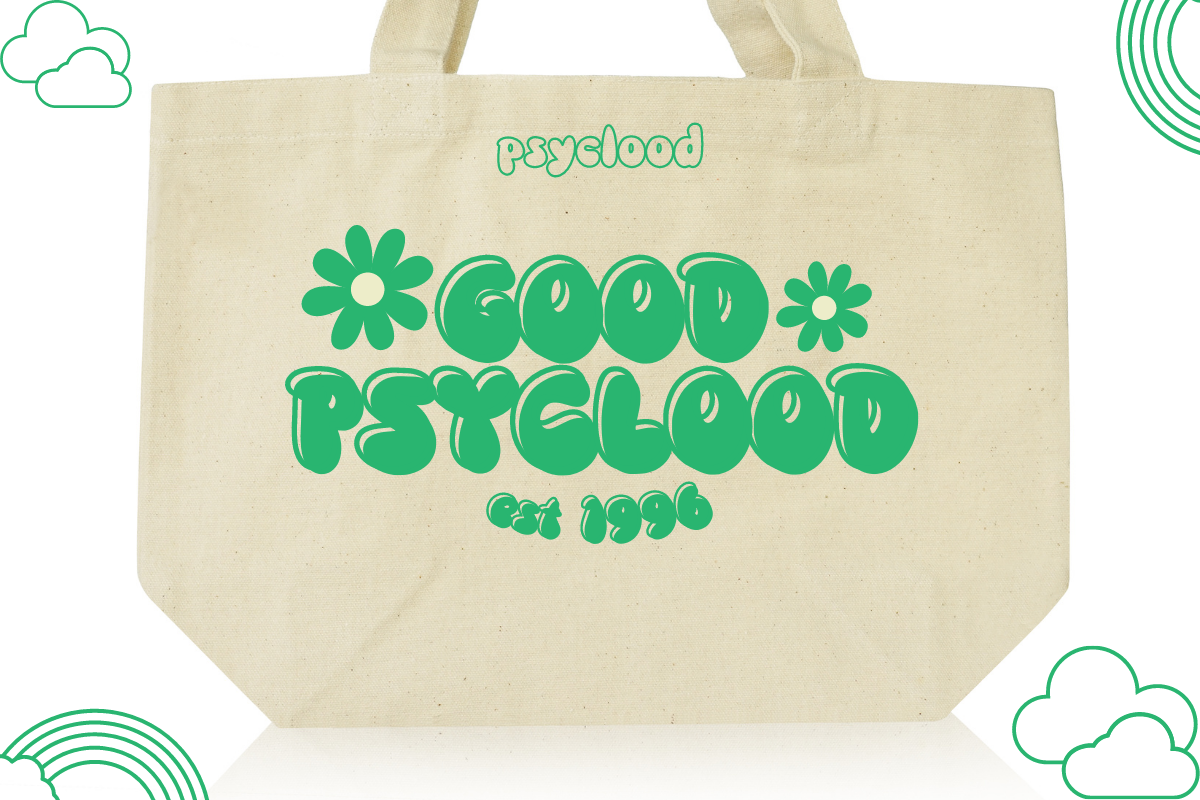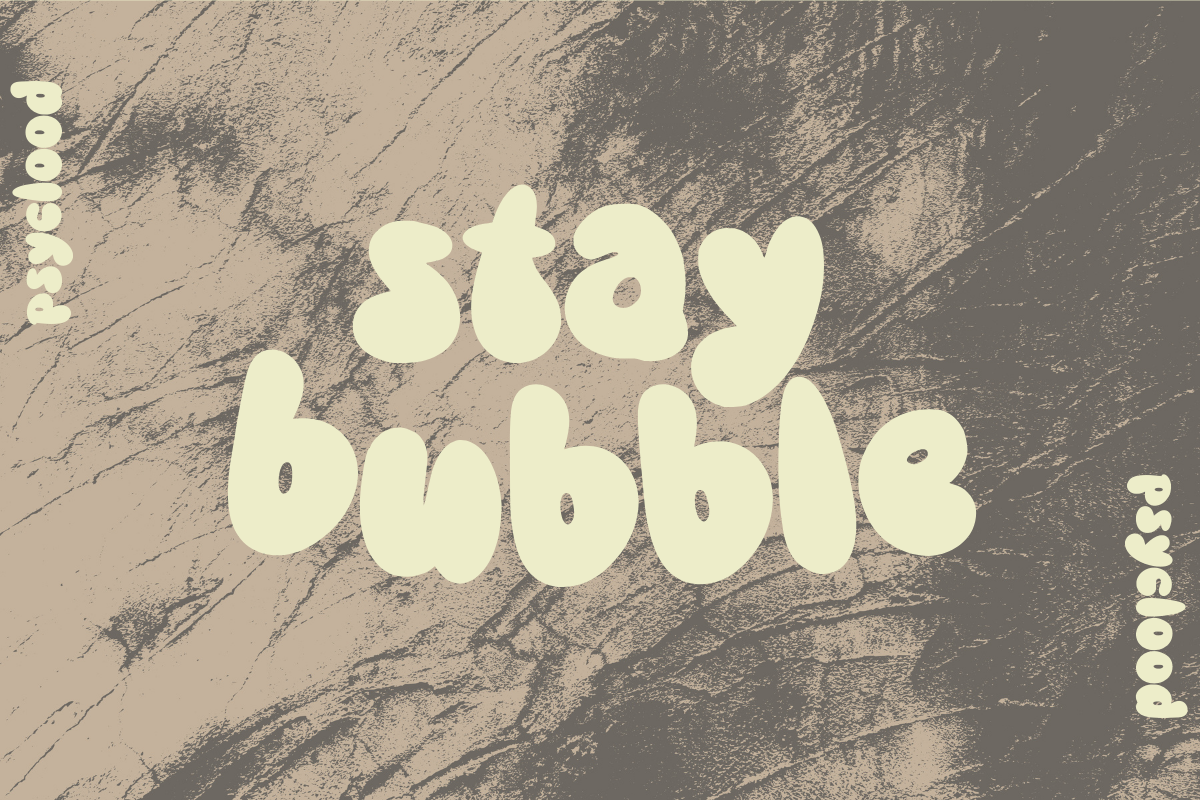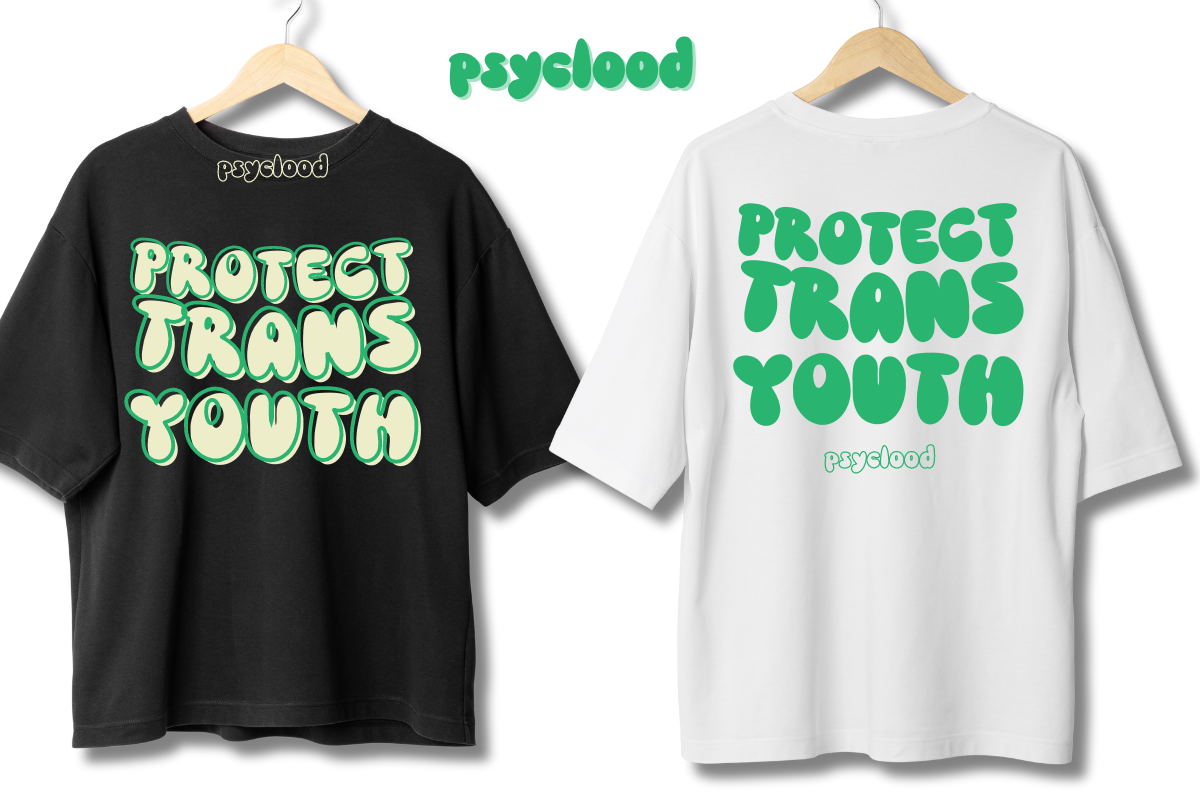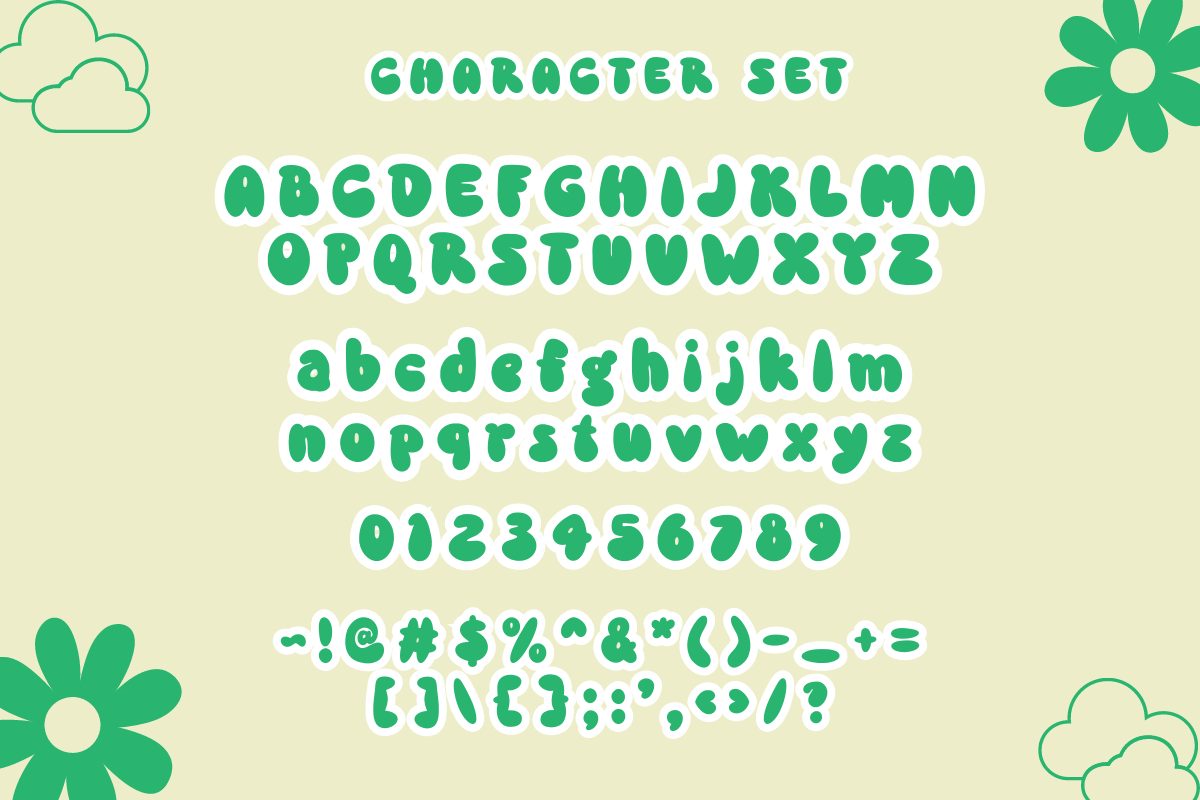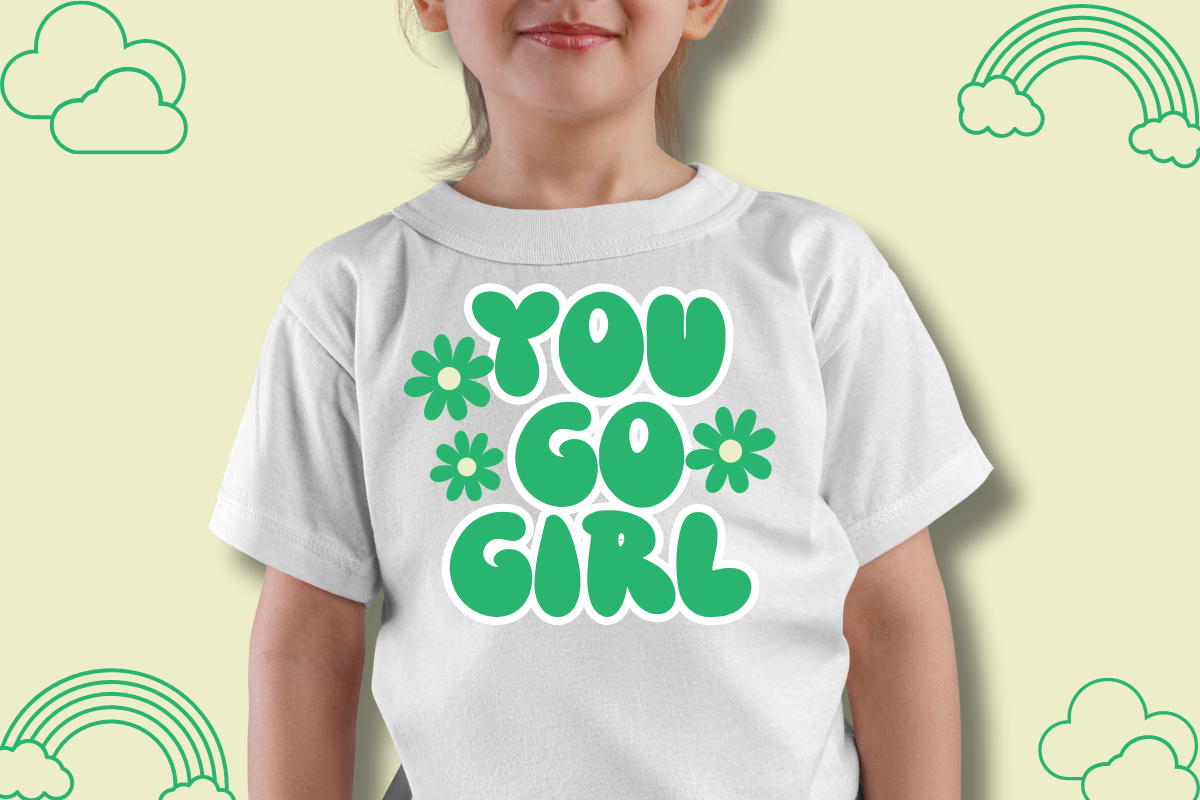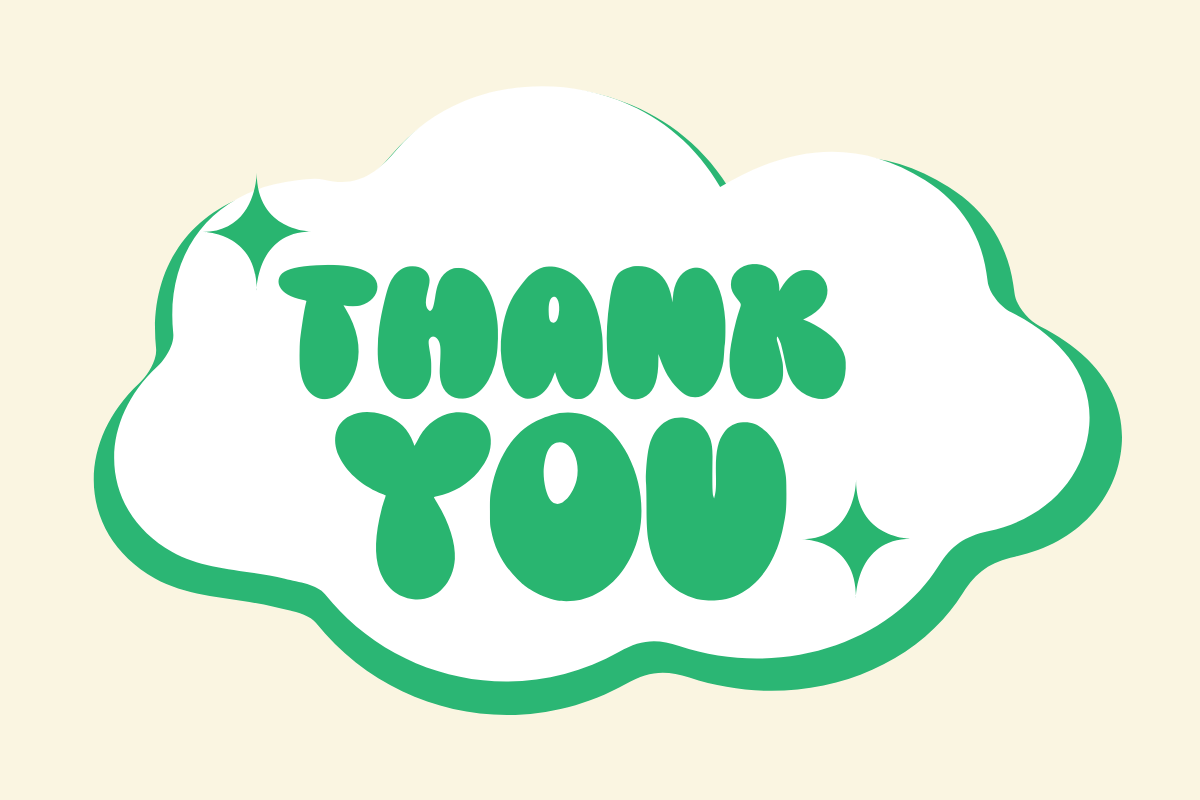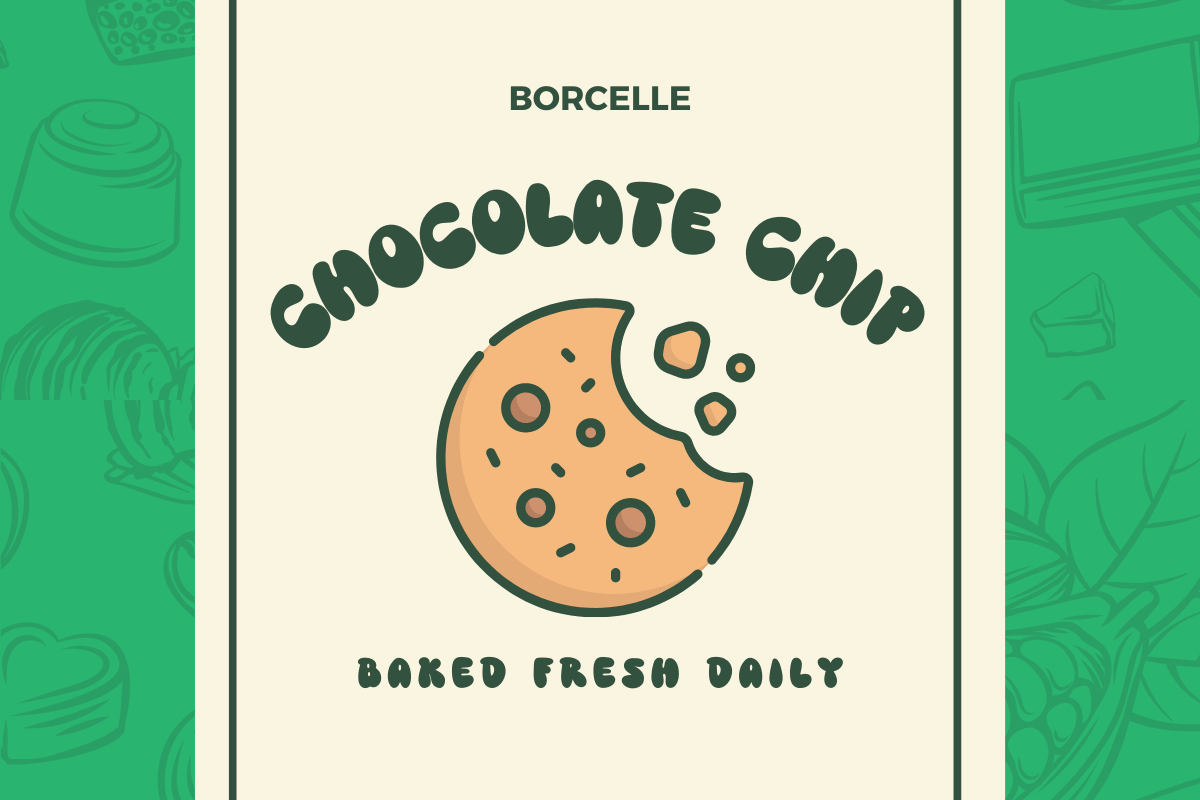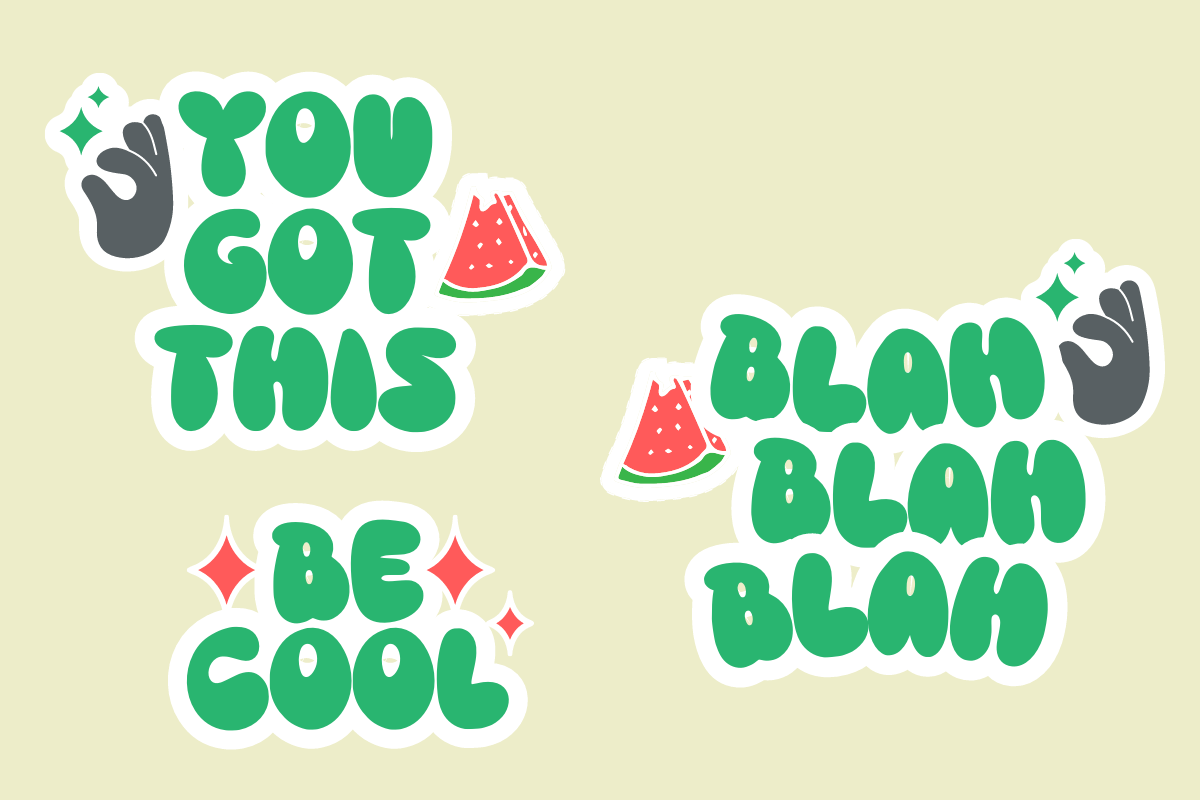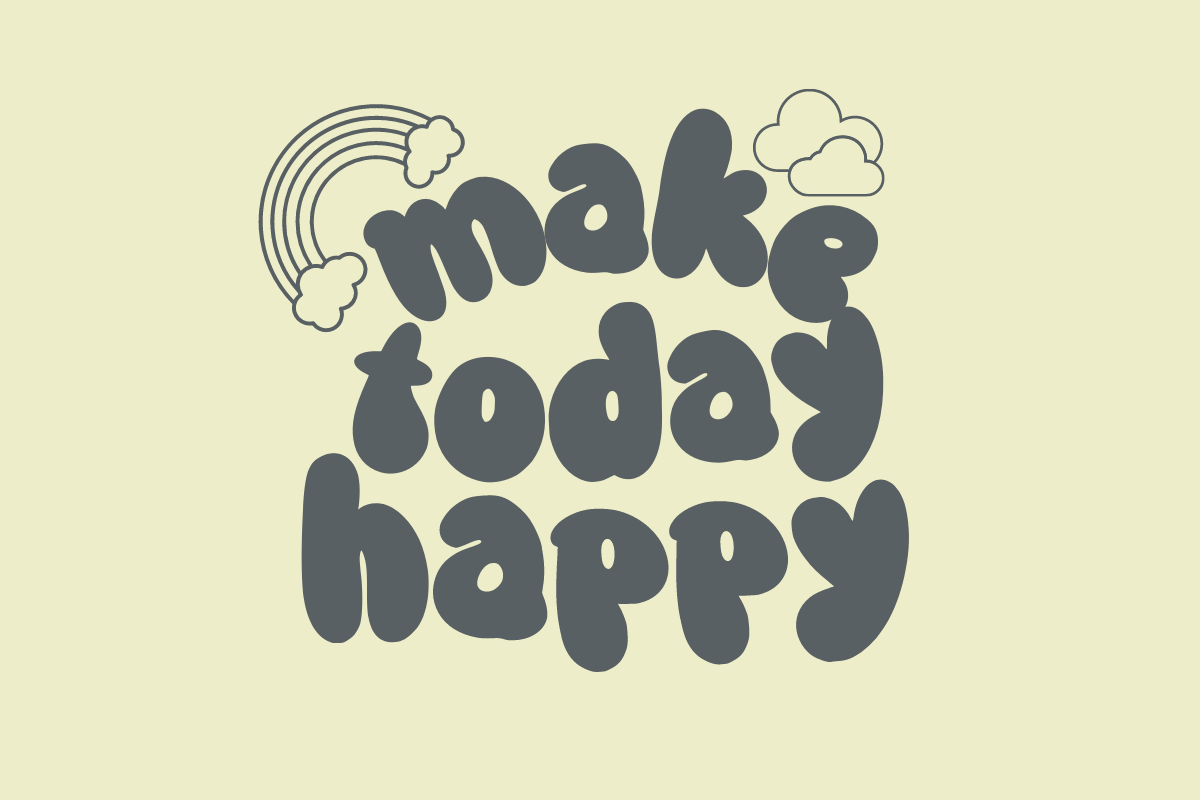
Psyclood
Light up your design projects with Psyclood, an engaging, nostalgia-inducing bubbly font. With its chirpy style, this delightful font infuses an exuberant spirit into any work it graces. Ideal for everything from enchanting book covers and eye-popping posters, to distinct logotypes and striking packaging. Bring your merchandising to life with the playful charm of Psyclood, a quintessential addition for designers looking to add a dash of old-school fun to their creative endeavors.